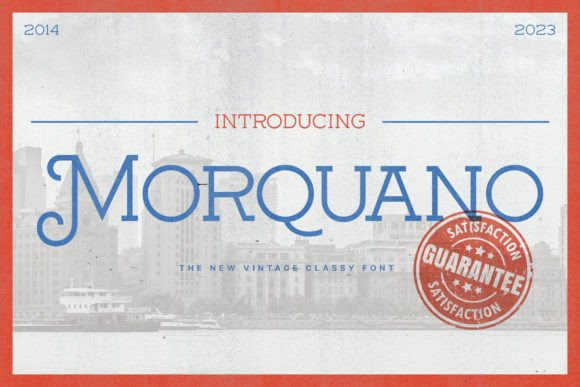
Step into an era of refined elegance with Morquano Font, the epitome of timeless sophistication. This captivating serif font exudes an aura of classic charm, injecting a touch of vintage allure into your creative endeavors.
Crafted by the visionary designers at konstantinestudio, Morquano draws inspiration from the smart-casual ethos of the fashion world, seamlessly blending the allure of the past with a modern sensibility. Its meticulously crafted glyphs evoke a sense of nostalgia, reminiscent of bygone eras when elegance and style reigned supreme.
Immerse yourself in the boundless versatility of Morquano, a font that effortlessly adapts to a myriad of design applications. Whether you seek to create a logo that exudes timeless appeal, design signage that commands attention, or craft book covers that captivate the imagination, Morquano rises to the occasion with grace and poise.
Unleash your creativity and let Morquano guide you through a realm of design possibilities. Its vintage charm lends a touch of elegance to apparel and merchandise, transforming ordinary items into objects of desire. Movie titles and serial graphics take on a new life, infused with an air of cinematic grandeur. The possibilities are endless, limited only by the boundaries of your imagination.
Embrace the allure of Morquano Font, a timeless treasure that transcends trends and fads. Its enduring beauty will elevate your designs to new heights, leaving an indelible mark on the hearts and minds of your audience.